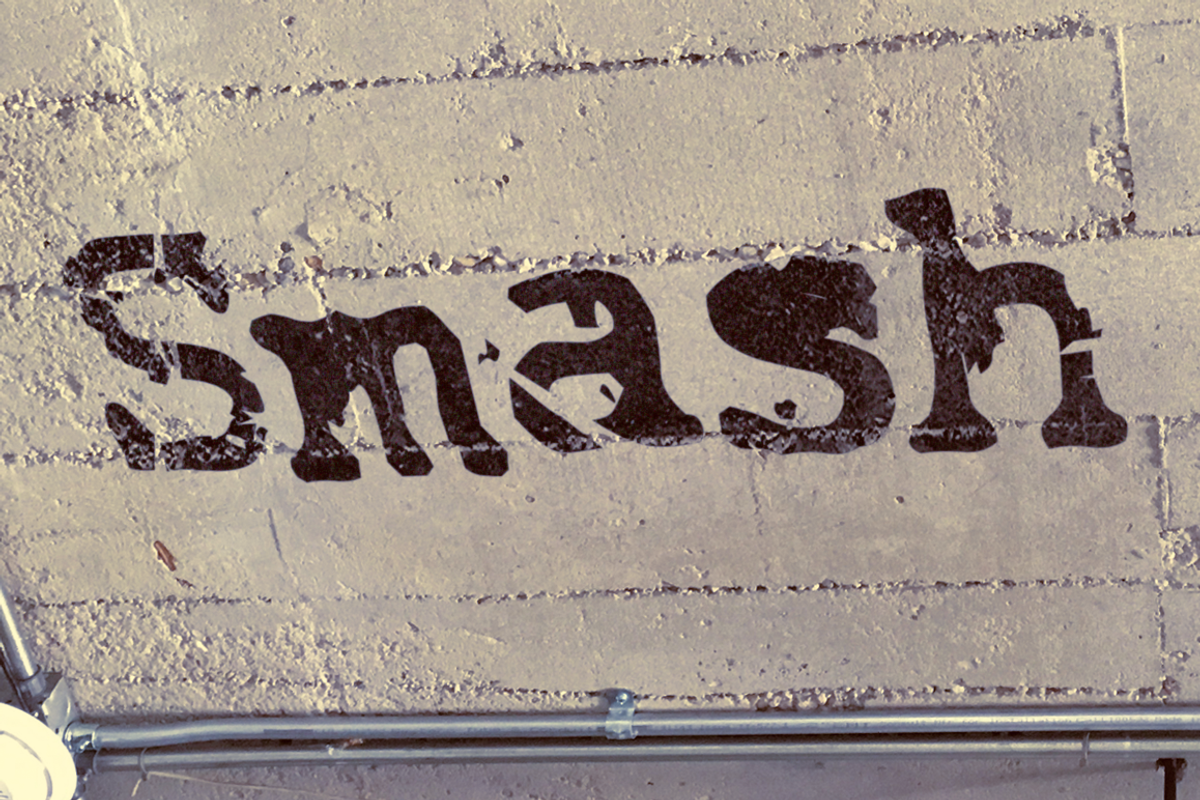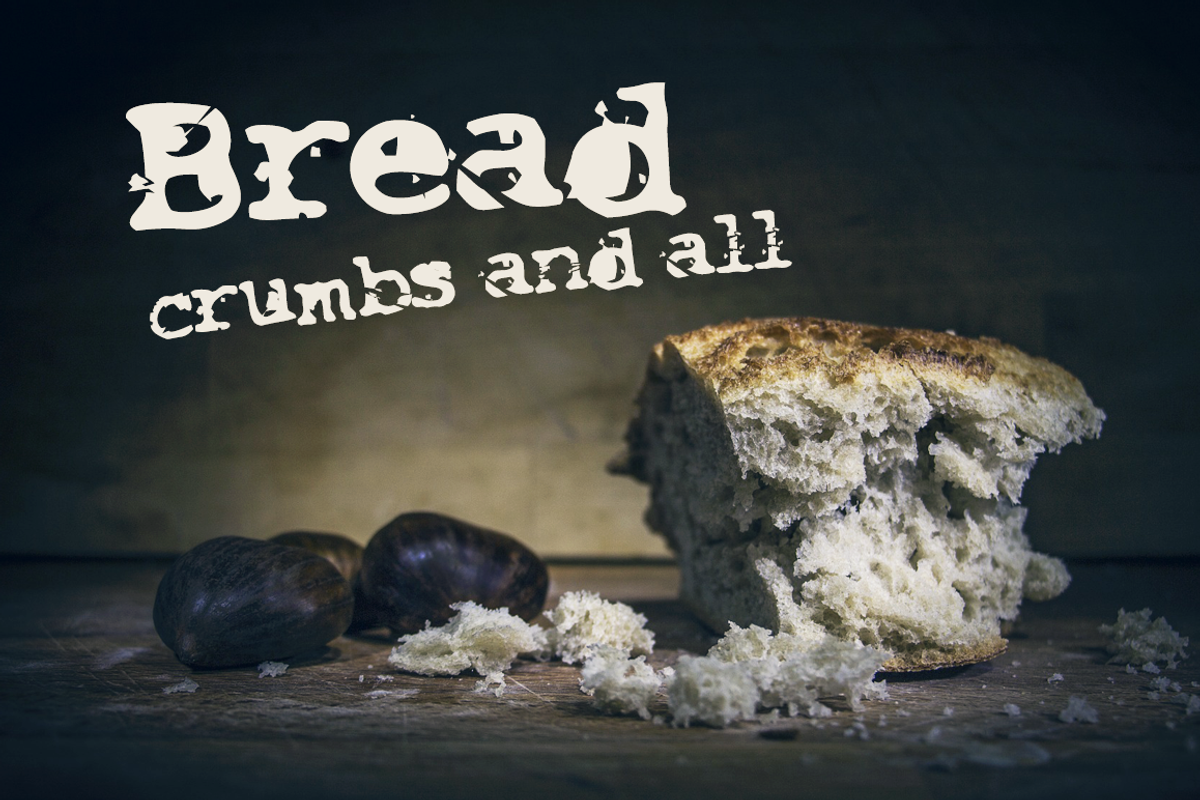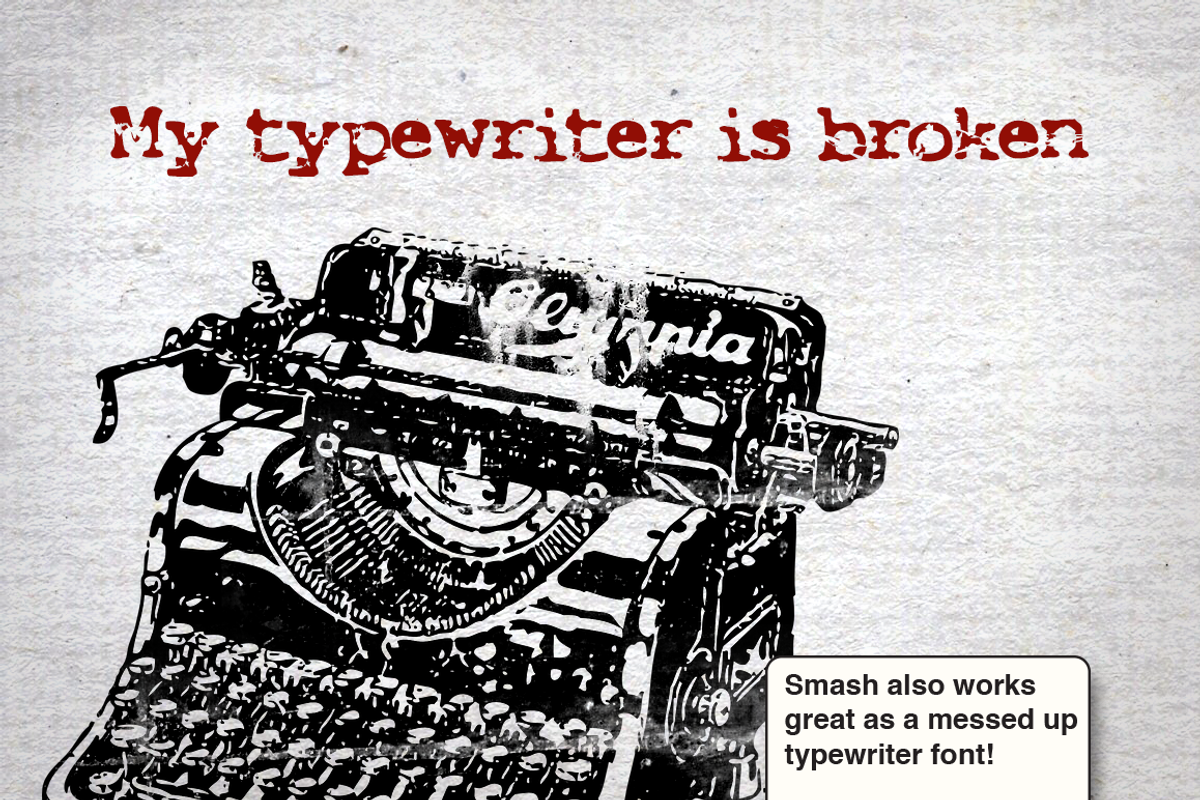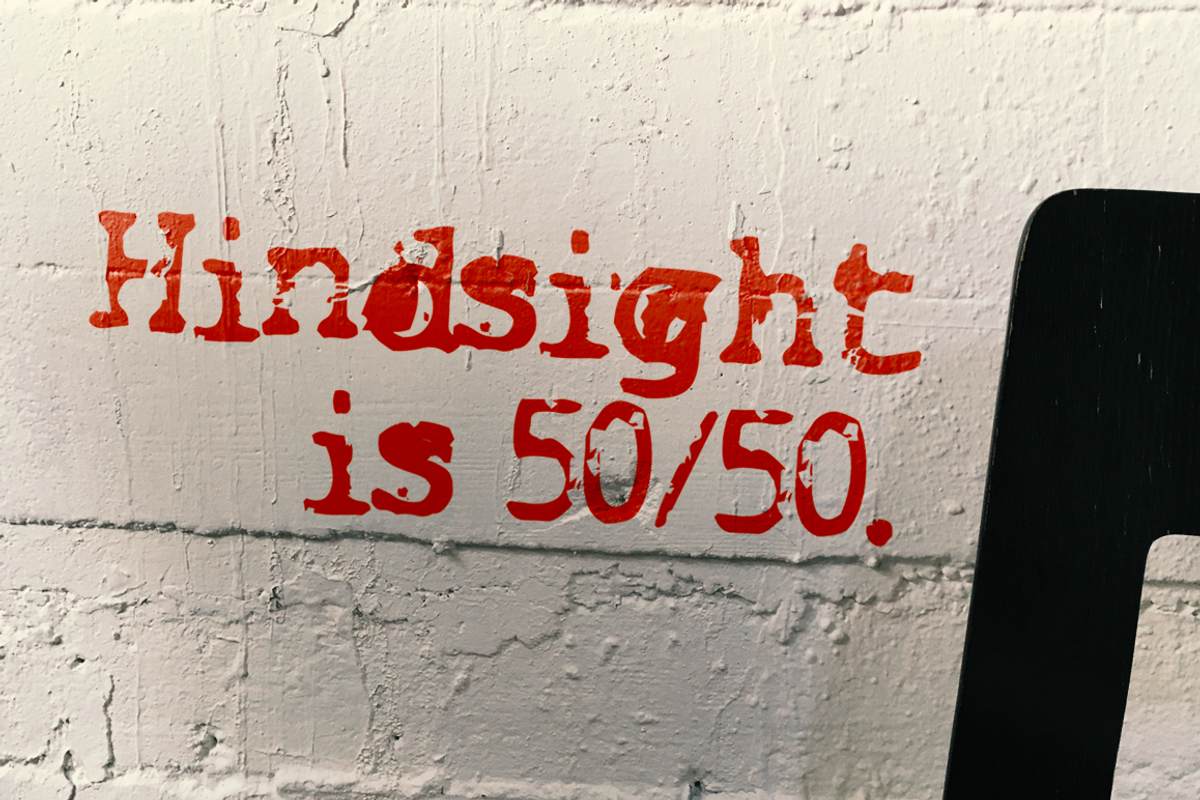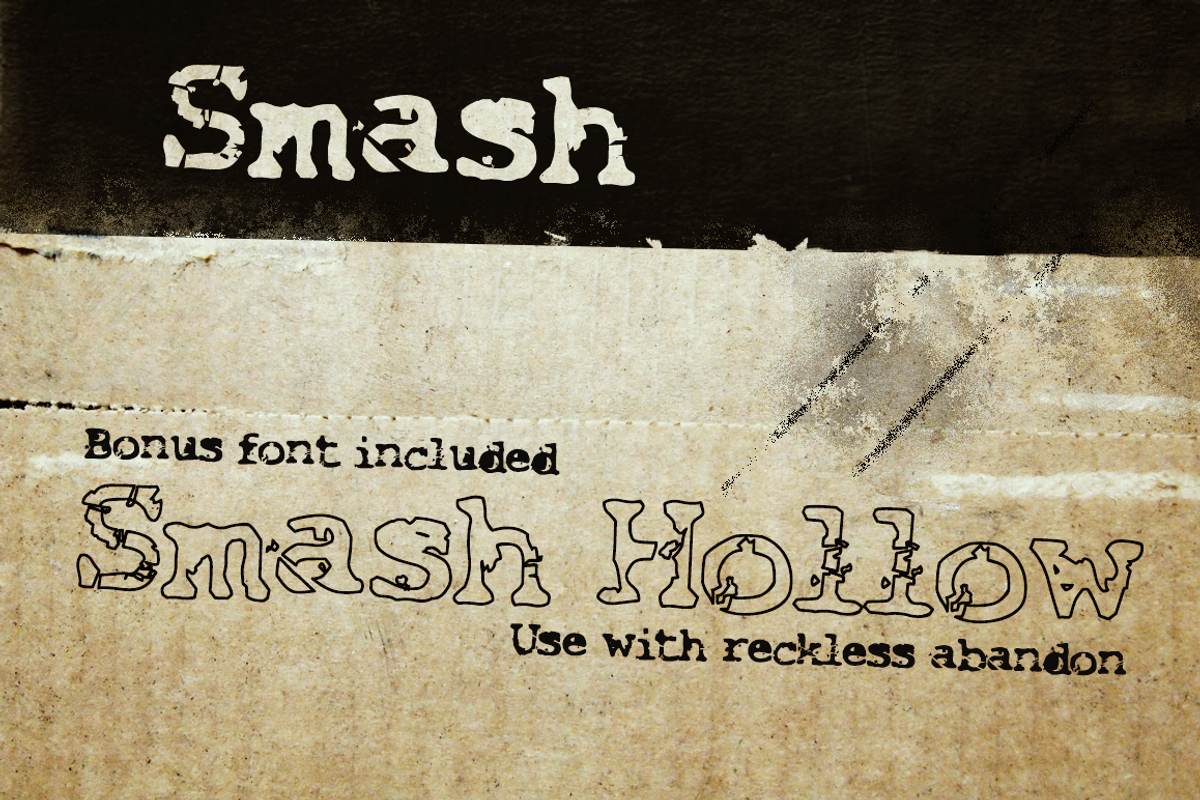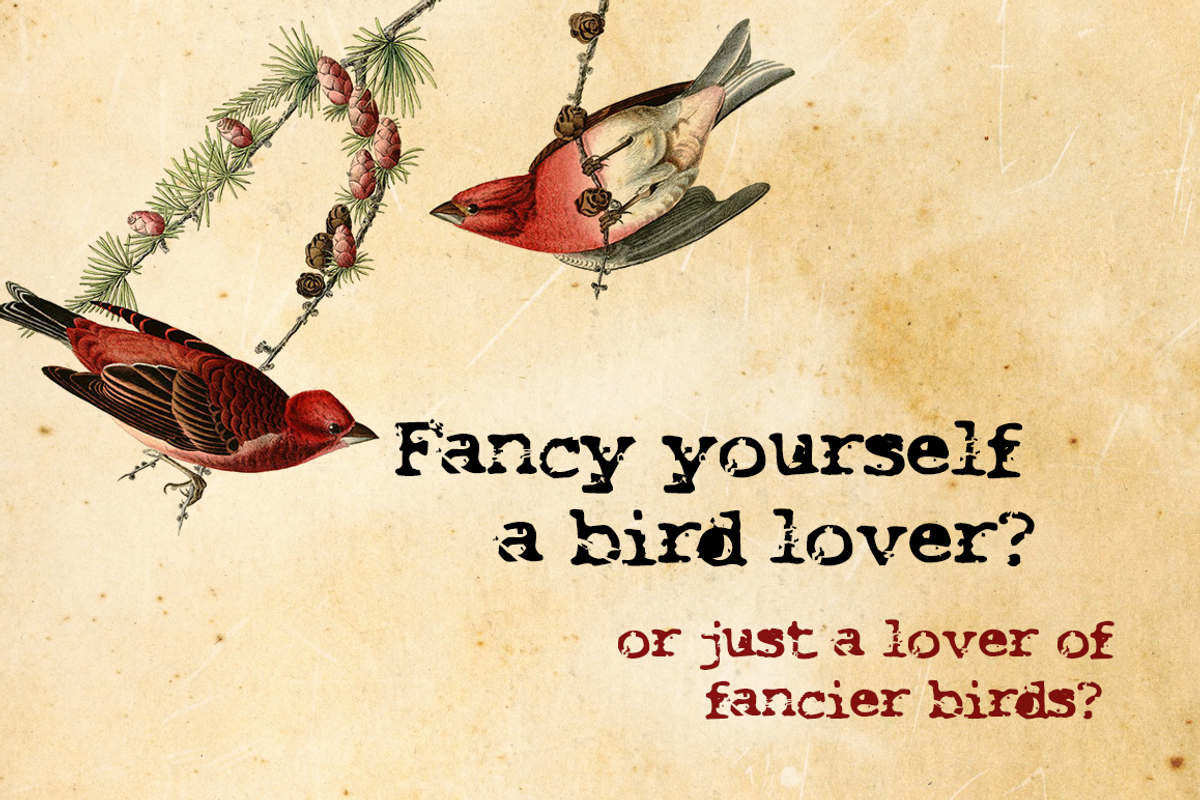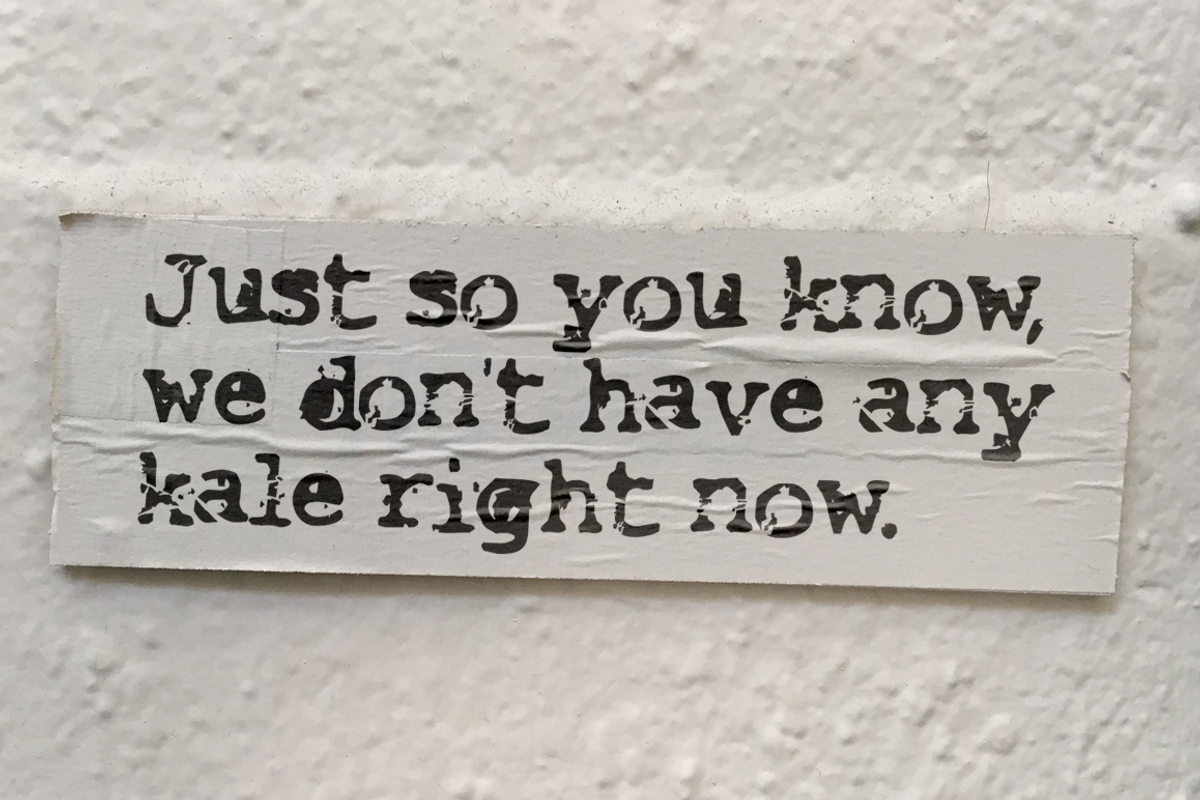
Smash
Smash Smash is a classic "grunge" type face. Smash is nicely distressed and has cracks, chunks and blobs. Some people think it looks like a crappy FAX or broken typewriter. It is compatible with so you can mix and match letters so you don't have two of the same messed up letters in a row (Pretty cool huh?).
- Now it also includes the bonus font Smash Hollow which is an outline version of Smash.
Smash by Cool Fonts fits naturally into Branding, posters, packaging, typography.